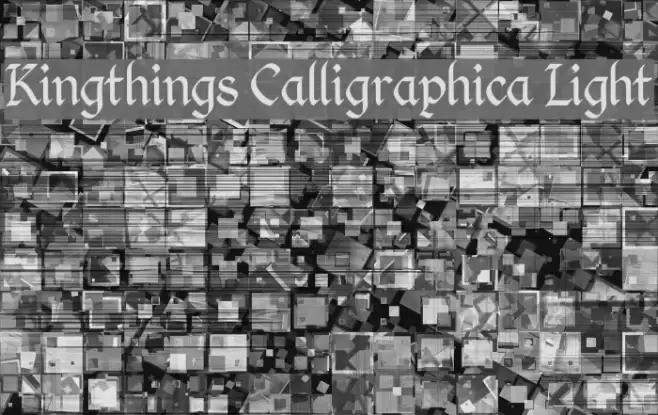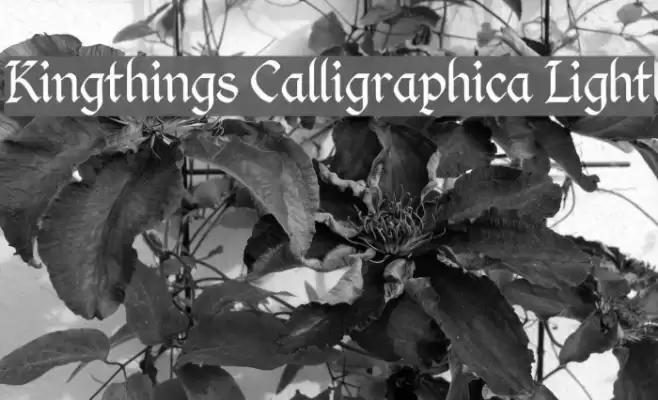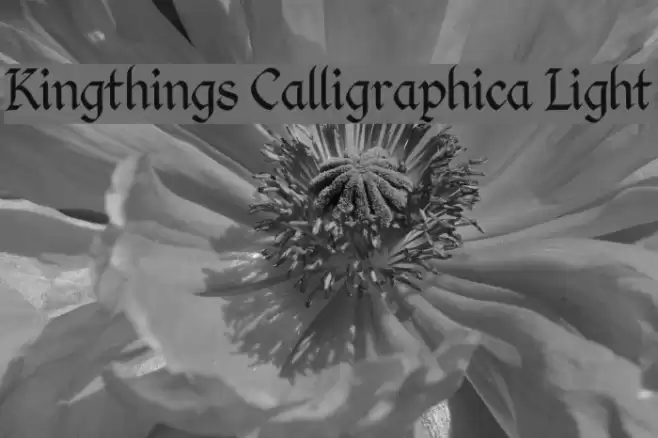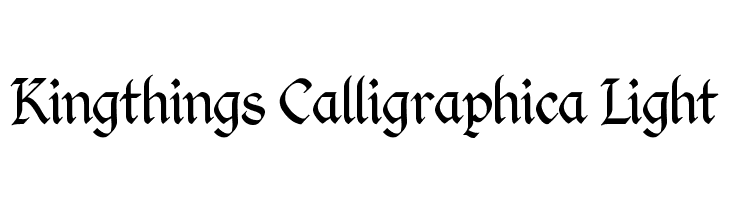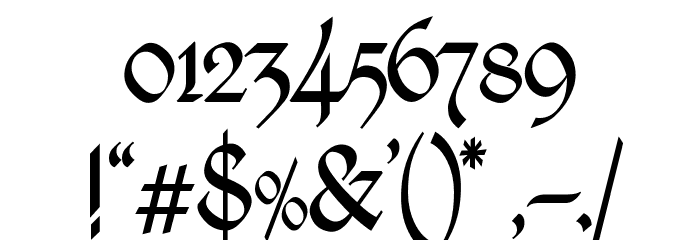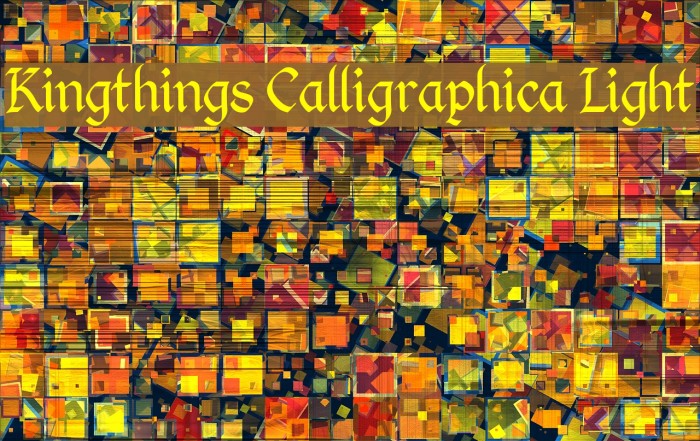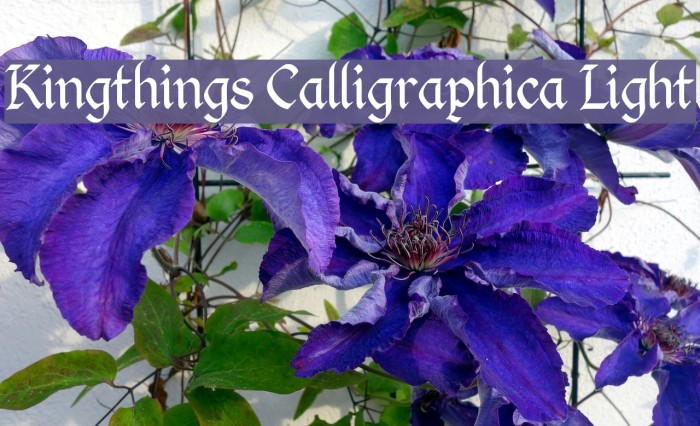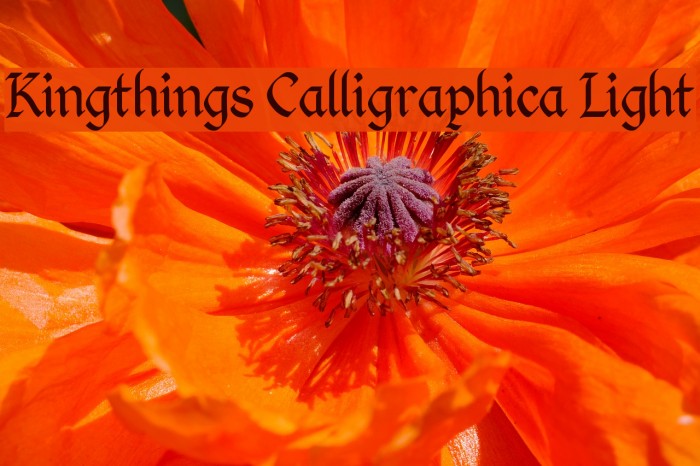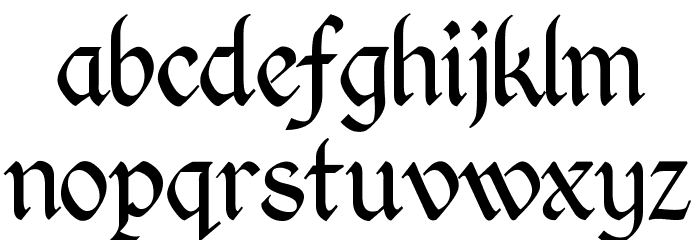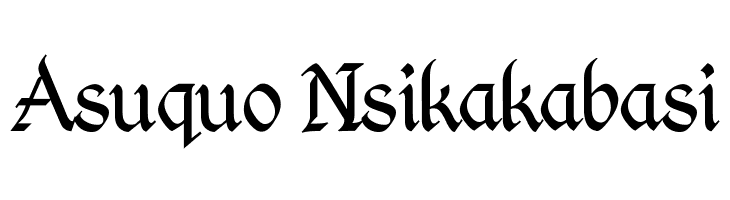
Kingthings Calligraphica Light Font
Kingthings Calligraphica Light Description
This font features a calligraphic style with a distinct medieval flair, characterized by its elegant and flowing letterforms. The uppercase letters exhibit sharp, angular serifs and a slight slant, giving them a dynamic appearance. The lowercase letters maintain a consistent style with smooth curves and pointed terminals, enhancing the overall fluidity. The numerals are uniquely styled, matching the decorative nature of the alphabet. Special characters are crafted with the same attention to detail, ensuring a cohesive look across all glyphs. This font's intricate design makes it suitable for projects that require a touch of historical or artistic elegance.
A calligraphic font with medieval influences, featuring elegant and flowing letterforms from Calligraphic fonts.
- Proposed Projects: Ideal for invitations, certificates, historical-themed designs, and artistic projects.
- Overall Style: Vintage
- Use Case: Logos, Headlines, Decorative text